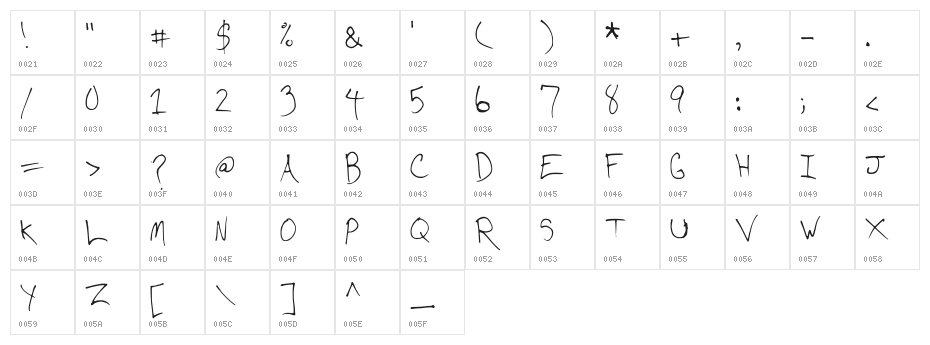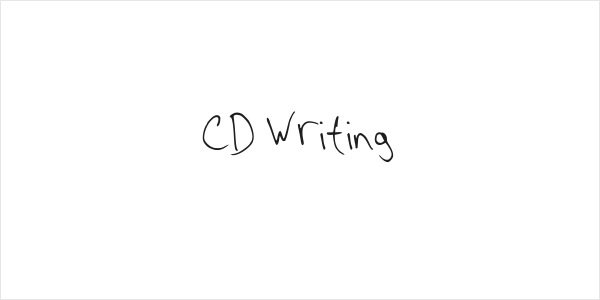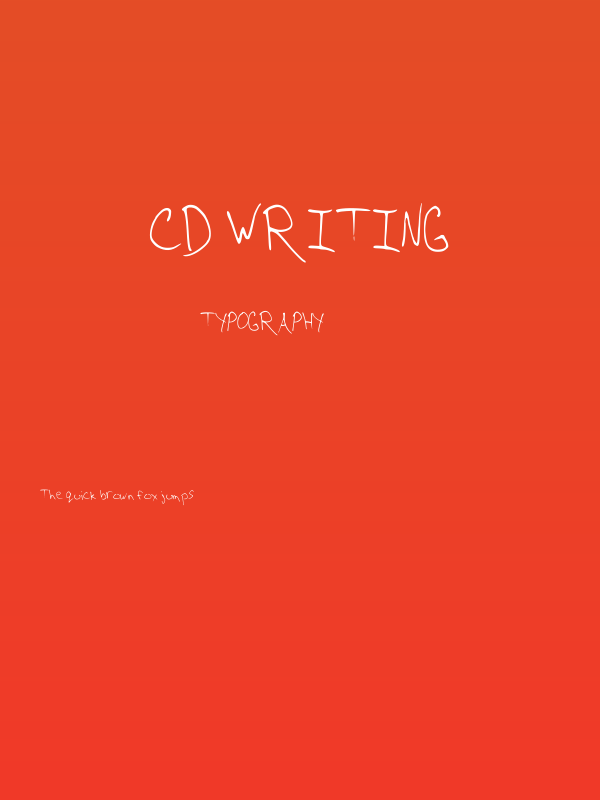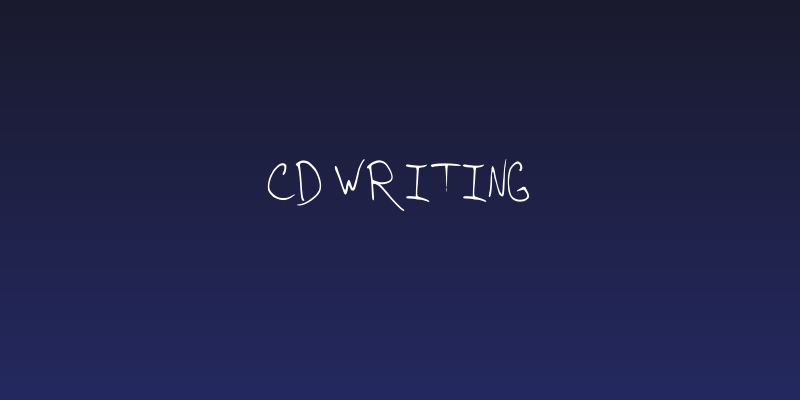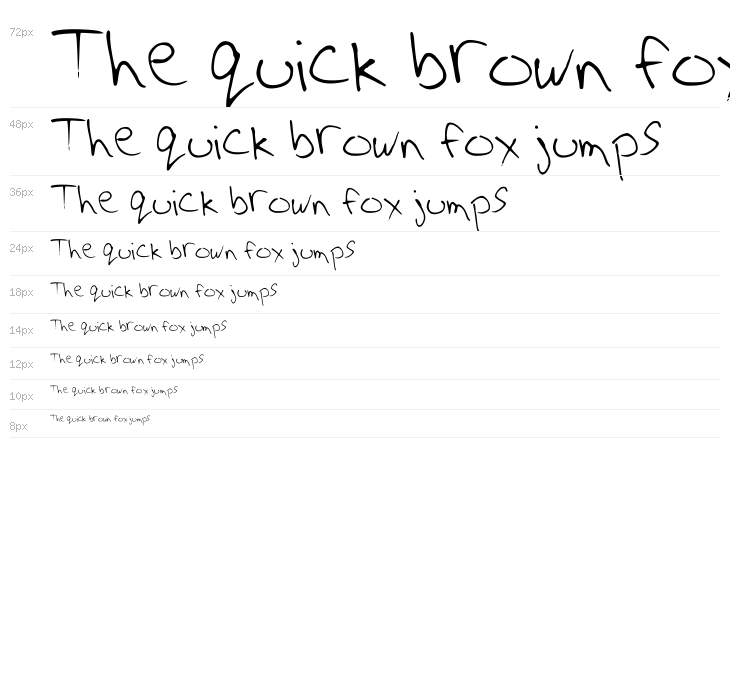
CD Writing Font
CD Writing Description
This font exudes a casual, handwritten style with a playful and informal appearance. The letters are unevenly spaced, with varying heights and angles, giving it a dynamic and spontaneous feel. The strokes are irregular and slightly wavy, mimicking the natural flow of handwriting. The uppercase letters are bold and prominent, while the lowercase letters maintain a consistent flow. Numbers and special characters follow the same whimsical style, making this font ideal for projects that require a personal touch. Its unique character makes it suitable for creative and artistic designs.
| Proposed Projects | Ideal for greeting cards, personal notes, creative posters, and children's book illustrations. |